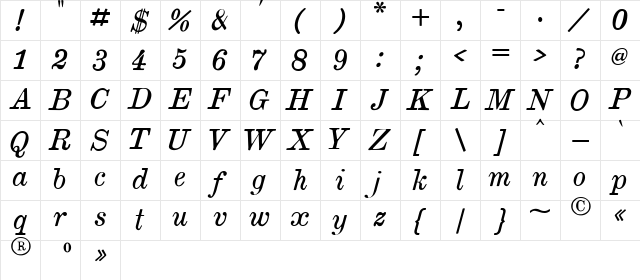
Brokgauz & Efron Italic
| Foundry | Anatole & Alexandra Gophmann |
| Designer | Anatole & Alexandra Gophmann |
Design Context for Brokgauz & Efron Typeface
Brokgauz & Efron offers clean, dependable letterforms without strong stylistic allegiance, making it a practical choice for designers who need flexibility. The dynamic lean of this cut emphasises speed and emphasis in any layout.